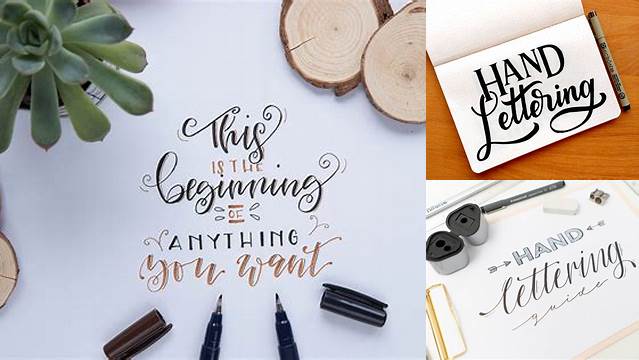
Hand Lettering Fonts: A Beginner's Guide
Hey guys! Are you ready to dive into the wonderful world of hand lettering? It's an awesome skill to learn, and it's way more approachable than you might think. This guide is crafted especially for beginners, so don't worry if you've never picked up a calligraphy pen before. We'll break down everything you need to know about hand lettering fonts, from choosing the right tools to practicing basic strokes and even designing your own unique lettering styles. So, grab your favorite pen and paper, and let's get started!
What is Hand Lettering?
So, what exactly is hand lettering? It's not the same as calligraphy or typography, though it borrows elements from both. Think of it as drawing letters rather than simply writing them. Hand lettering is all about creating unique compositions and expressive letterforms. You have complete control over each stroke, giving you the freedom to create a wide variety of styles and moods. Unlike calligraphy, where each letter is typically written in a single stroke, in hand lettering, you can lift your pen, add flourishes, and build up the letterforms to your liking. This flexibility is what makes hand lettering so versatile and fun.
Imagine you're creating a custom piece of art with words. That's essentially what hand lettering is! It's a fantastic way to add a personal touch to invitations, cards, posters, journal entries, and so much more. It's also a super relaxing and creative outlet. The beauty of hand lettering lies in its imperfections – those little quirks and variations that make each piece unique and handcrafted. Don't strive for perfect uniformity; embrace the natural flow and character of your own handwriting.
When you're starting out, it's helpful to understand the basic anatomy of a letter. We're talking about terms like ascenders (the parts of lowercase letters that extend above the main body, like the top of 'b' or 'h'), descenders (the parts that extend below the baseline, like the bottom of 'g' or 'p'), x-height (the height of the main body of the lowercase letters), and baseline (the imaginary line on which the letters sit). Getting familiar with these terms will help you understand how different fonts are constructed and how to maintain consistency in your own lettering.
Essential Tools for Hand Lettering Beginners
Before you start creating your masterpieces, let's talk about the essential tools you'll need. The good news is, you don't need a ton of fancy equipment to get started with hand lettering. A few basic supplies will set you up for success. The most important tools are, of course, your pens and paper, but there are also some other helpful items that can make your lettering journey smoother.
Pens: The type of pen you choose can dramatically affect the look of your lettering. For beginners, brush pens are a popular choice because they allow you to create thick and thin strokes with varying pressure. Some great beginner-friendly brush pens include Tombow Dual Brush Pens, Pentel Fude Touch Sign Pens, and Faber-Castell Pitt Artist Pens. These pens come in a wide range of colors and sizes, giving you plenty of options to experiment with. Fineliner pens, like the Micron pens, are also useful for adding details and outlines to your lettering. Don't be afraid to try different pens to see what you like best. Each pen will give you a slightly different feel and result.
Paper: The type of paper you use is just as important as the pen. Smooth paper is essential for brush lettering because it prevents the pen nib from fraying. Rhodia paper, HP Premium Choice Laserjet paper, and Canson Marker paper are all excellent options. Avoid using rough or textured paper, as it can damage your pens and make it difficult to achieve smooth lines. You might also want to consider using tracing paper for practicing your letterforms and layouts.
Pencils and Erasers: A pencil is your best friend for sketching out your lettering layouts before you commit to ink. This allows you to experiment with different compositions and letter placements without making permanent marks. A good eraser is also essential for correcting mistakes and cleaning up your sketches. A kneaded eraser is particularly useful because it can be molded into different shapes to erase small areas.
Rulers and Guidelines: Rulers are helpful for drawing guidelines to ensure your lettering is straight and consistent. You can create your own guidelines on your paper or use a pre-printed guide sheet. Guidelines are especially important when you're learning to maintain consistent x-height and baseline.
Optional Tools: As you progress, you might want to explore other tools like calligraphy pens, watercolor paints, and embossing supplies. But for beginners, the basics mentioned above are more than enough to get you started. The most important thing is to practice regularly and experiment with different techniques.
Exploring Different Hand Lettering Font Styles
Okay, so you've got your tools, and you're ready to start lettering. But where do you begin with font styles? There are countless hand lettering font styles out there, each with its own unique personality and flair. Experimenting with different styles is a key part of developing your own lettering voice. Let's explore some popular hand lettering font styles that are perfect for beginners:
Hand Lettering Fonts for Beginners: Final Thoughts
So, there you have it! A comprehensive guide to hand lettering fonts for beginners. Remember, the key to success in hand lettering is practice, patience, and a willingness to experiment. Don't be afraid to make mistakes – they're all part of the learning process. Embrace the imperfections and enjoy the journey of developing your own unique lettering style. With a little bit of effort and dedication, you'll be creating beautiful hand-lettered designs in no time. Now go grab your pens and paper, and let your creativity flow!